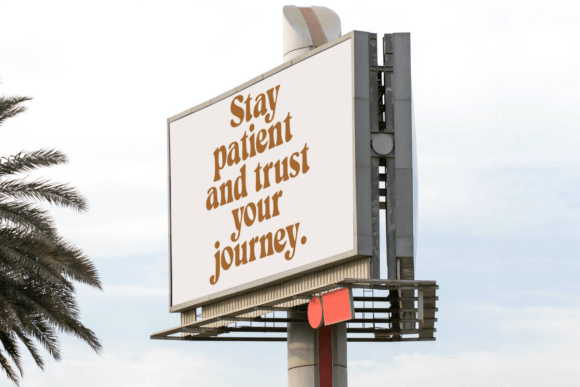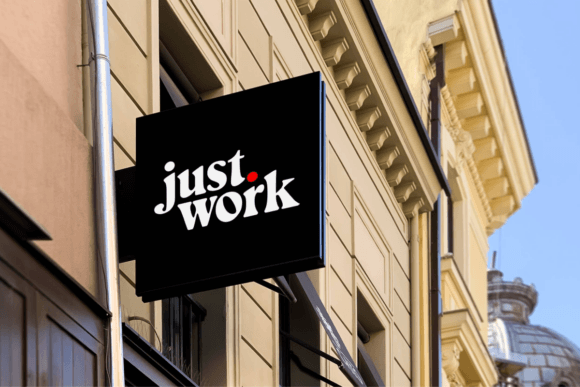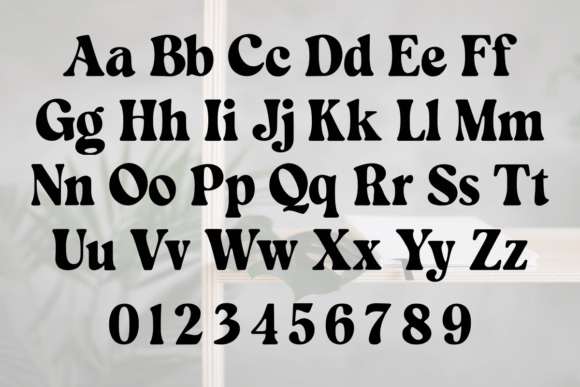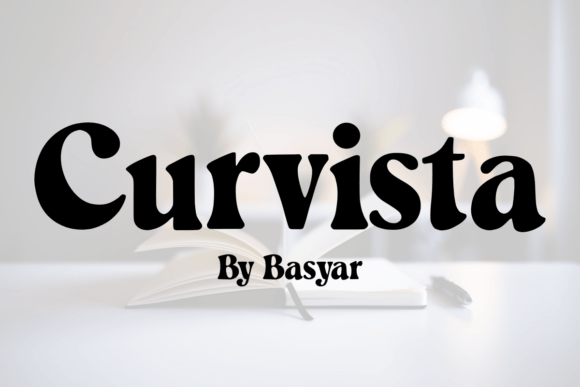
Introducing Curvista Font: The Perfect Blend of Vintage Charm and Modern Elegance
In the world of typography, fonts play a crucial role in conveying the tone and personality of a brand or design. For designers and crafters looking to add a touch of nostalgia and sophistication to their creative projects, Curvista Font is an excellent choice. This stylish retro-inspired display font combines the best of both worlds, blending vintage charm with a modern twist to create a truly unique and captivating visual experience.
The Characteristics of Curvista Font
Curvista Font is characterized by its bold, flowing curves and distinctive serifs, which give it a distinctive retro feel. The font’s design is inspired by classic typography from the past, but with a modern spin that makes it perfect for contemporary designs. The bold curves and serifs add a level of elegance and sophistication, making Curvista Font ideal for designs that require a touch of luxury and refinement.
One of the standout features of Curvista Font is its exceptional readability. Despite its bold and ornate design, the font remains clear and easy to read, even at smaller sizes. This makes it perfect for use in a variety of applications, from logos and posters to social media graphics and branding materials.
Uses for Curvista Font
Curvista Font is an incredibly versatile font that can be used in a wide range of creative projects. Here are just a few examples of how you can use this beautiful font:
- Logos: Curvista Font is perfect for creating unique and memorable logos that stand out from the crowd. Its bold, flowing curves and distinctive serifs make it an excellent choice for brands looking to add a touch of elegance and sophistication to their branding.
- Posters: Whether you’re creating a poster for a movie, event, or product launch, Curvista Font is an excellent choice. Its bold design and exceptional readability make it perfect for headlines and titles.
- Social Media Graphics: Curvista Font is also great for social media graphics, such as Facebook posts, Instagram stories, and Twitter headers. Its unique design and bold curves make it perfect for grabbing attention and adding a touch of personality to your social media presence.
- Branding: Curvista Font is an excellent choice for branding materials, such as business cards, brochures, and letterheads. Its elegant design and exceptional readability make it perfect for creating professional-looking branding materials that reflect your brand’s personality and values.
Why Choose Curvista Font?
So why choose Curvista Font for your next creative project? Here are just a few reasons:
- Unique Design: Curvista Font has a unique and distinctive design that sets it apart from other fonts. Its bold, flowing curves and serifs make it perfect for adding a touch of elegance and sophistication to your designs.
- Exceptional Readability: Despite its bold design, Curvista Font remains clear and easy to read, even at smaller sizes. This makes it perfect for use in a variety of applications, from logos and posters to social media graphics and branding materials.
- Versatility: Curvista Font is an incredibly versatile font that can be used in a wide range of creative projects. Whether you’re creating a logo, poster, social media graphic, or branding material, Curvista Font is an excellent choice.
In conclusion, Curvista Font is a stylish retro-inspired display font that combines vintage charm with a modern twist. Its bold, flowing curves and unique serifs make it perfect for capturing a nostalgic vibe while maintaining readability. With its exceptional readability, versatility, and unique design, Curvista Font is an excellent choice for designers and crafters looking to add a touch of elegance and personality to their creative projects. Whether you’re creating a logo, poster, social media graphic, or branding material, Curvista Font is sure to impress.